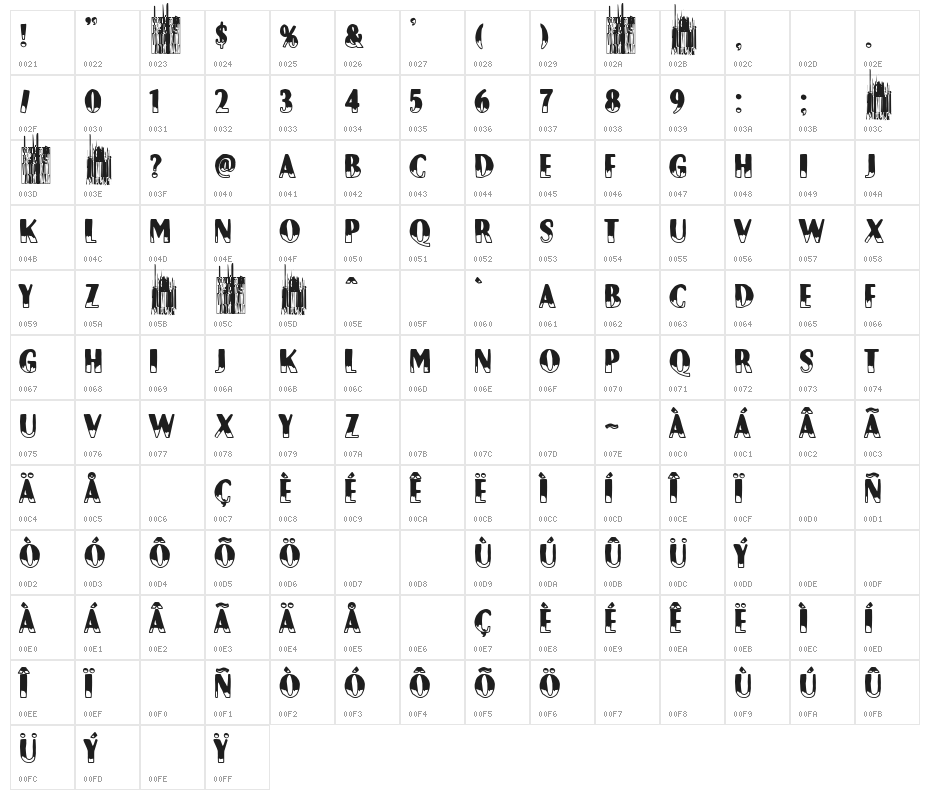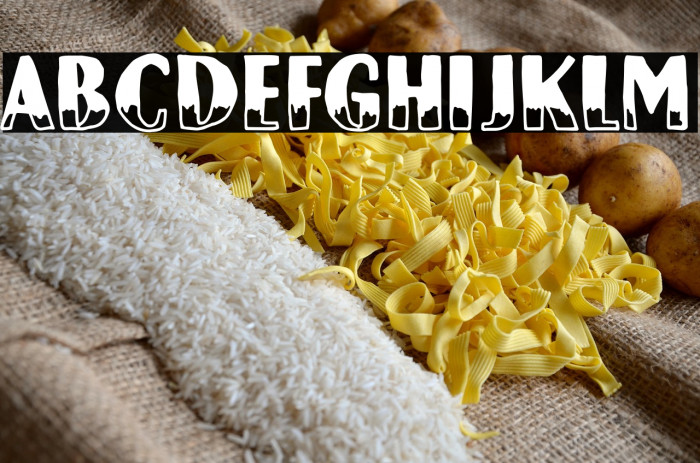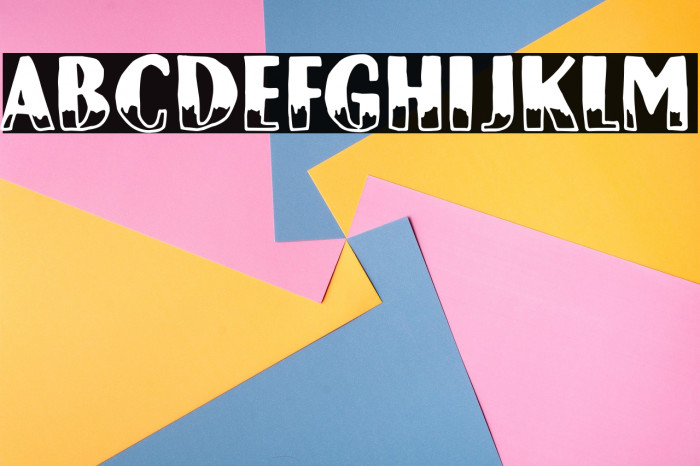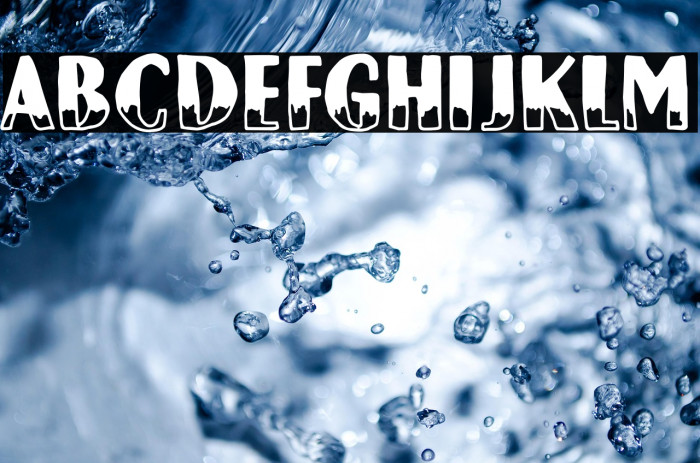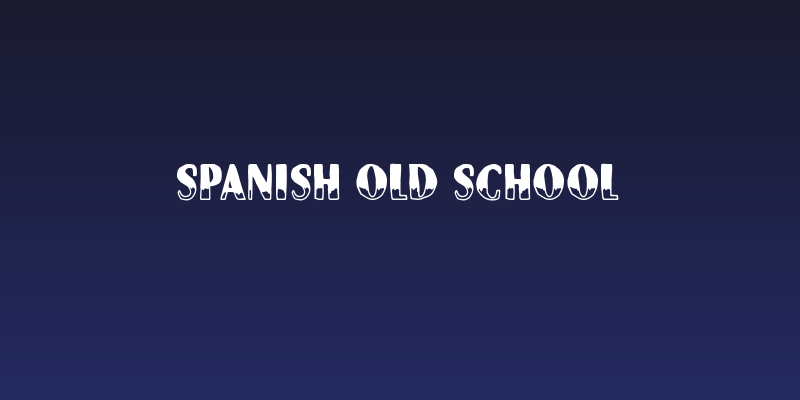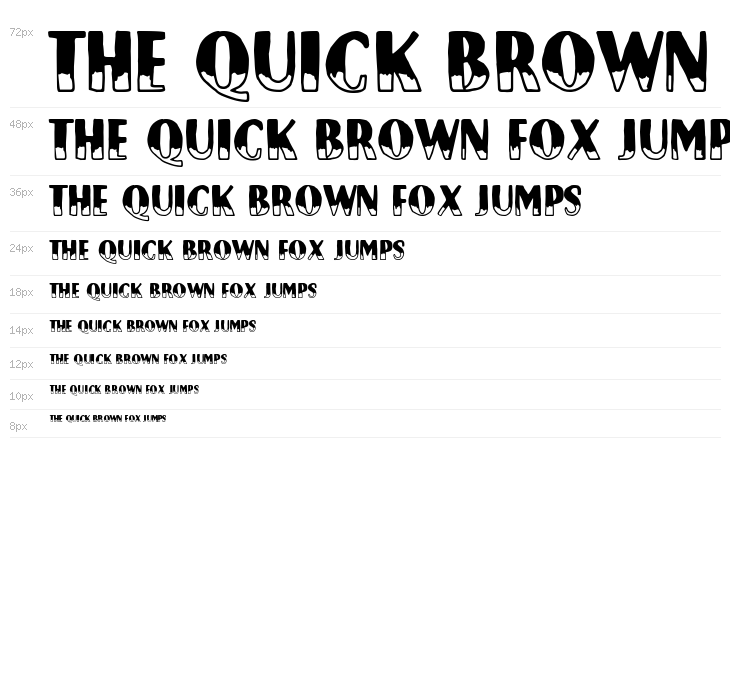
Spanish Old School Font
Spanish Old School Description
This font features a bold and decorative style with a distinct old-school flair. The uppercase and lowercase letters are characterized by thick strokes and playful, uneven edges that give a hand-drawn appearance. The numbers and special characters maintain this whimsical style, adding a unique touch to any design. The font's boldness and decorative elements make it stand out, perfect for projects that require a vintage or retro aesthetic. Its playful nature is ideal for creative and artistic endeavors.
| Proposed Projects | Ideal for vintage posters, retro-themed designs, artistic projects, and playful branding. |